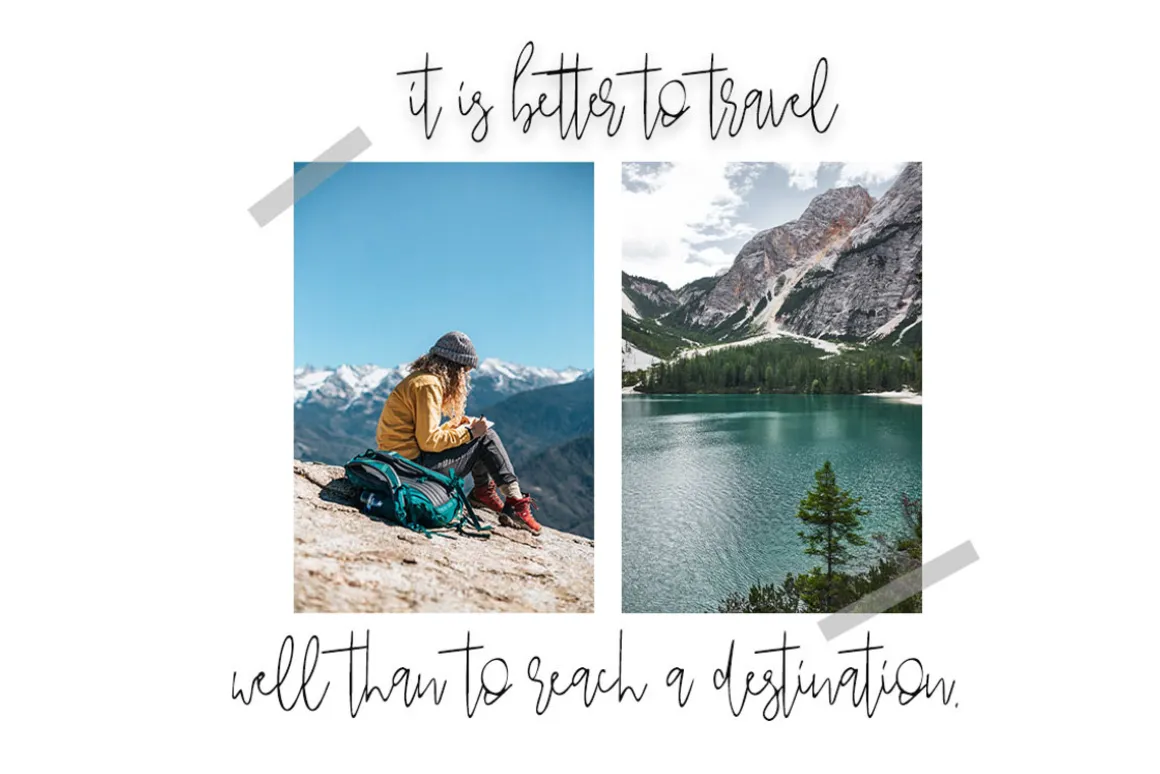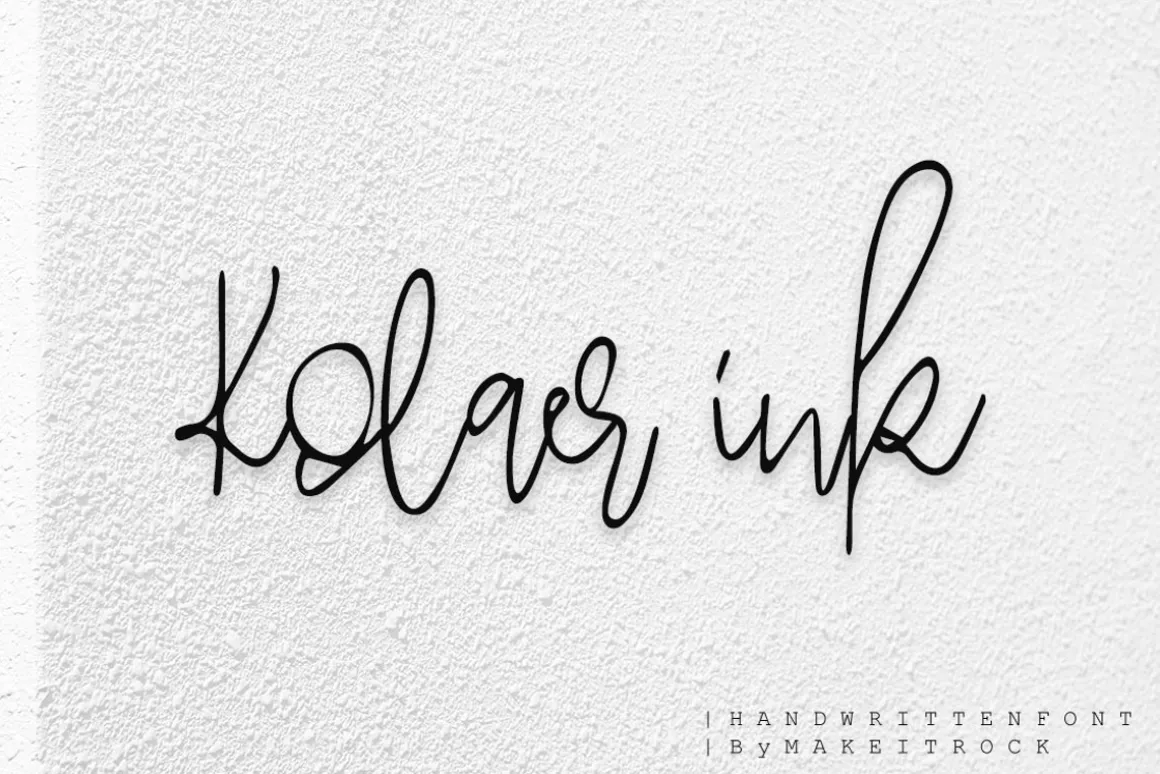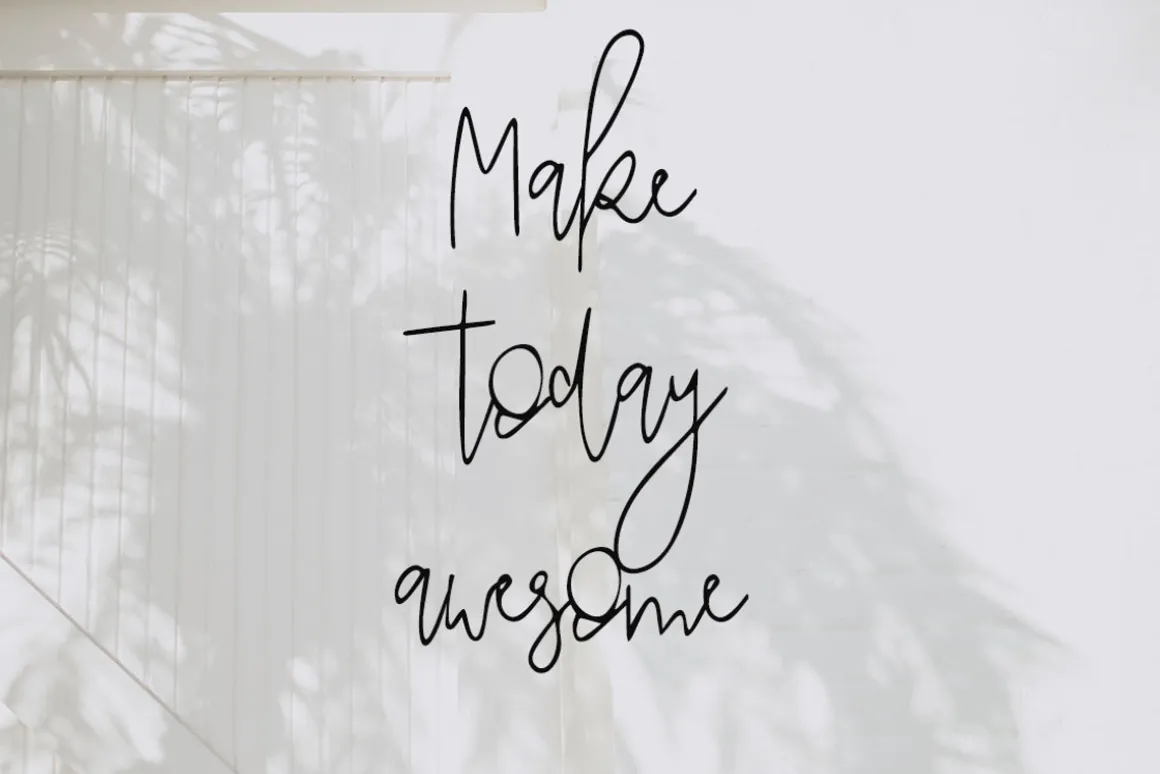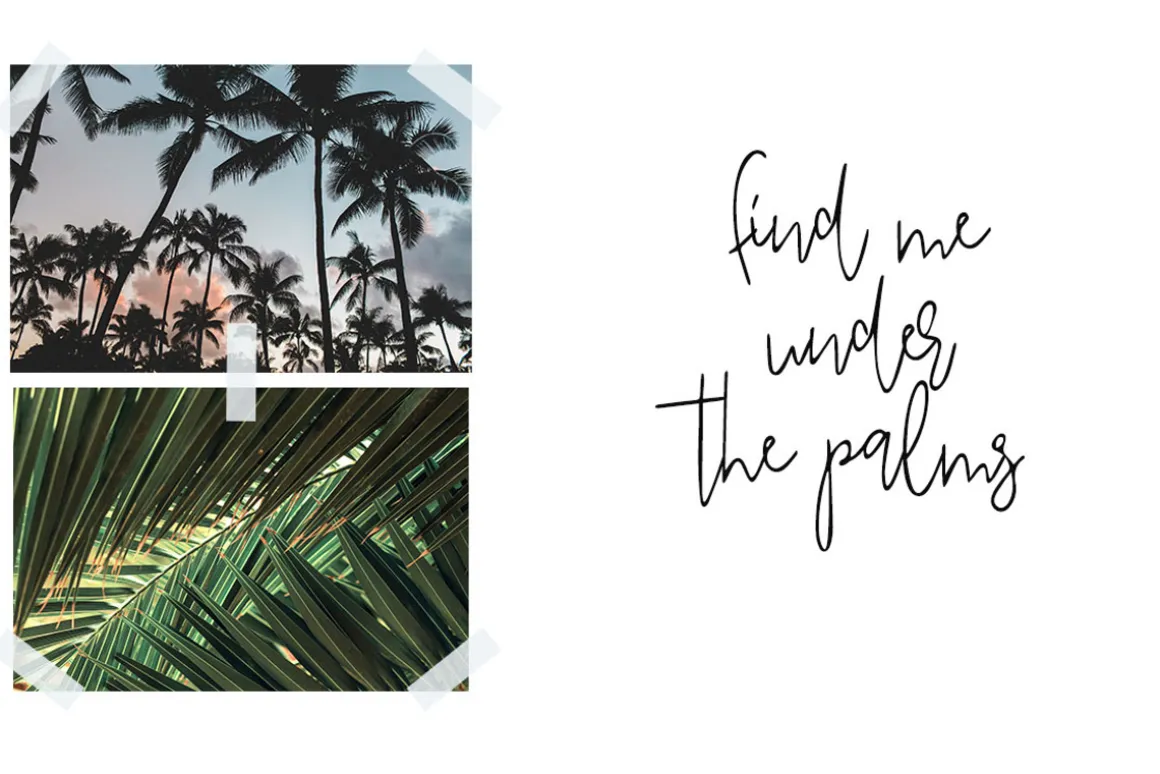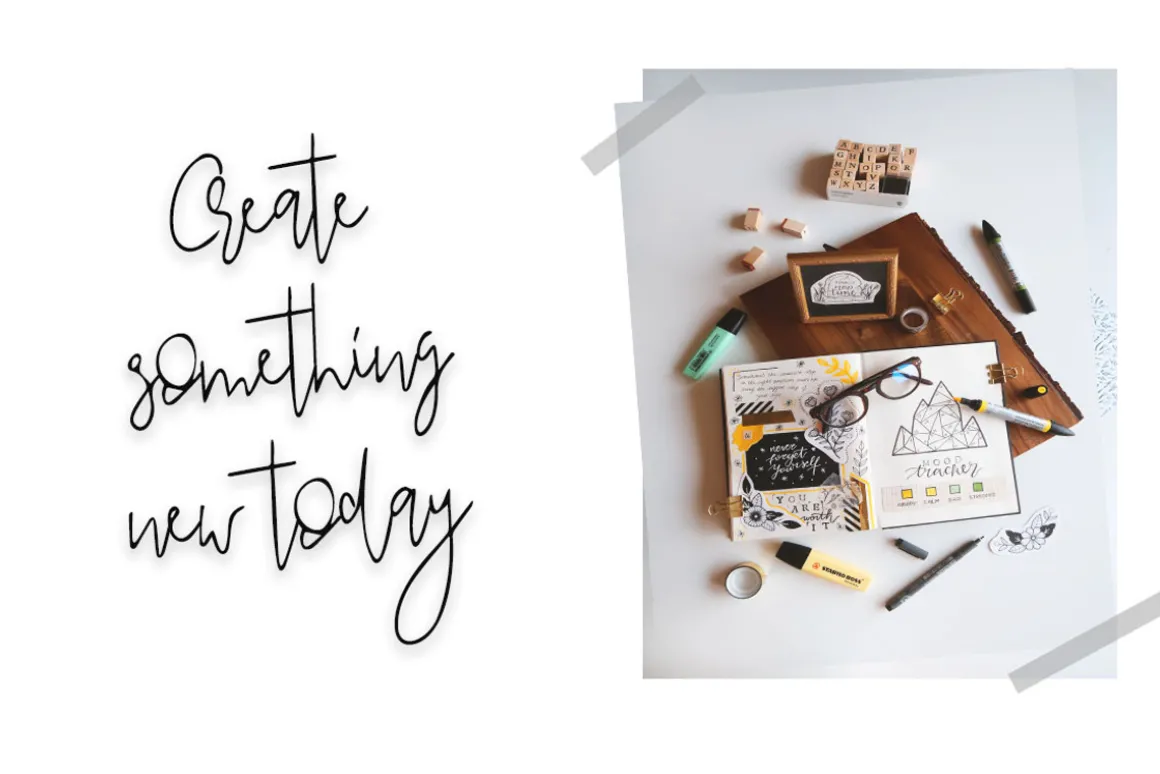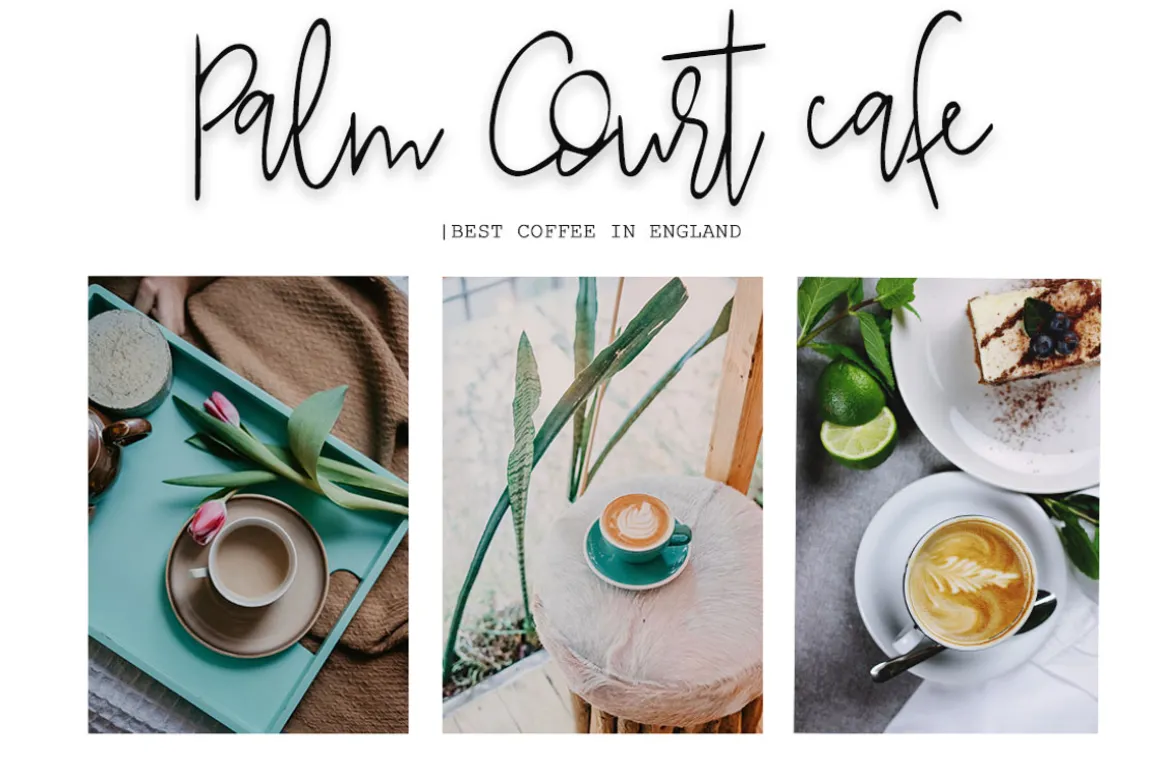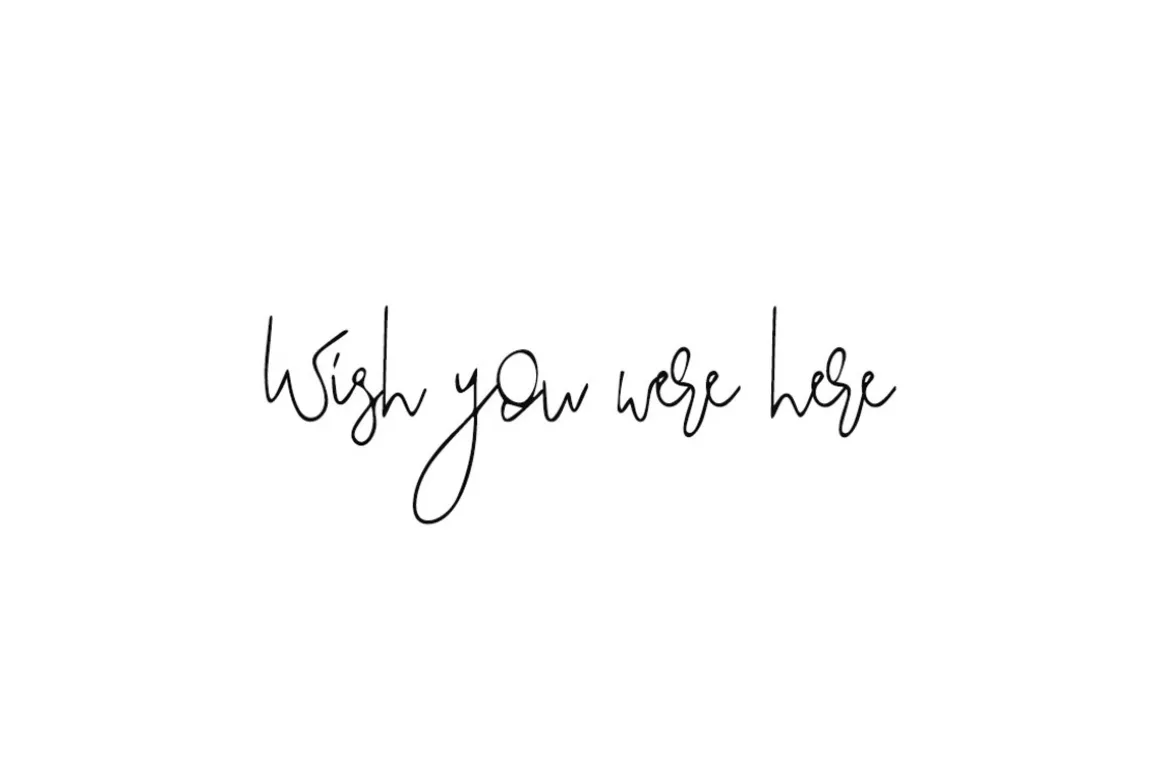
*Introducing Kolaer ink
This handwritten script has been attentively written, with gentle curves to produce a font thats completely distinctive and original. Perfect for adding a elegant and unique touch to your lettering projects and branding.
Also with their help, you can create a Wedding lettering or beautiful frame for your home. Or just use for your small business, book covers, stationery, marketing, magazines and more. Kolaer ink font built with uppercase, lowercase, numeral, punctuation.